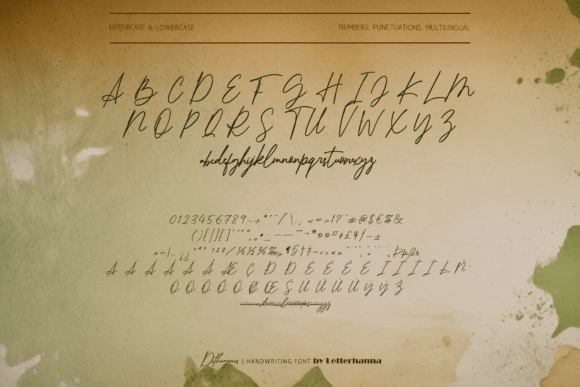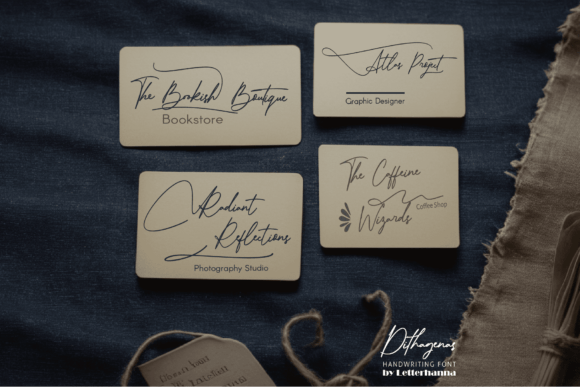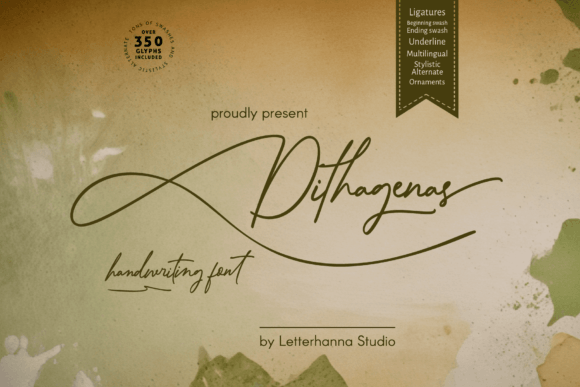
Dithagenas Font
Dithagenas Font, a new handwriting script font meticulously crafted to elevate your creative endeavors. Drawing inspiration from the graceful loops and inherent variations of handwritten text, Dithagenas achieves a captivating harmony of refinement and natural ease.